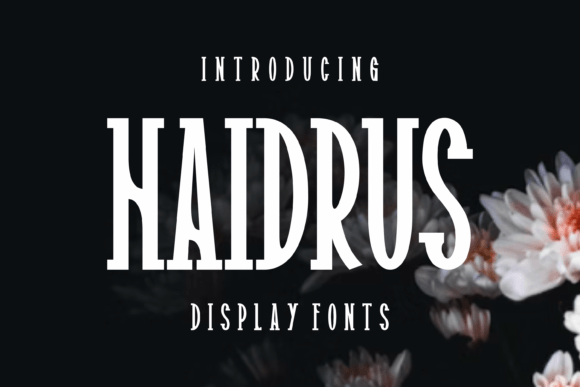
Unleash the Power of Bold Expression with Haidrus Font: A Designer's Haven
In a world of mundane fonts, Haidrus emerges as a strikingly bold display font, igniting a visual revolution for your creative projects. Its striking lines and commanding presence demand attention, promising to leave an indelible mark on your audience.
Why Choose Haidrus?
- **Magnetic Headlines:** Captivate your readers with headlines that leap off the page, creating an irresistible pull that leaves them craving more.
- **Unleash Creativity:** Let your imagination soar as you utilize Haidrus's versatility to craft captivating logos, posters, and magazine covers that resonate with your audience.
- **Stand Out in Print:** Make a lasting impression with eye-catching t-shirts and banners that speak volumes about your brand's personality and message.
- **Versatile Expression:** Whether you seek to create mesmerizing headers or embark on large-scale artistic endeavors, Haidrus flawlessly adapts to suit your vision.
- **Effortless Branding:** Elevate your brand's identity with a font that exudes boldness and confidence, reflecting the essence of your business.
- **Unleash Your Inner Artist:** Transform your designs into stunning works of art, where each letter carries an emotional weight that captivates and inspires.